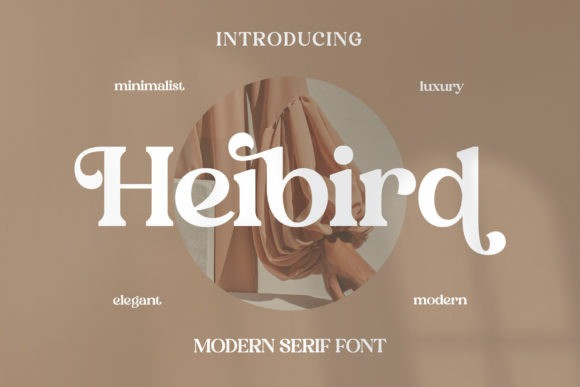
Heibird Font
Heibird is a bold and elegant serif font. It looks gorgeous and stylish and it will most certainly enhance a large range of designs. This font is PUA encoded which means you can access all of the glyphs and swashes with ease!